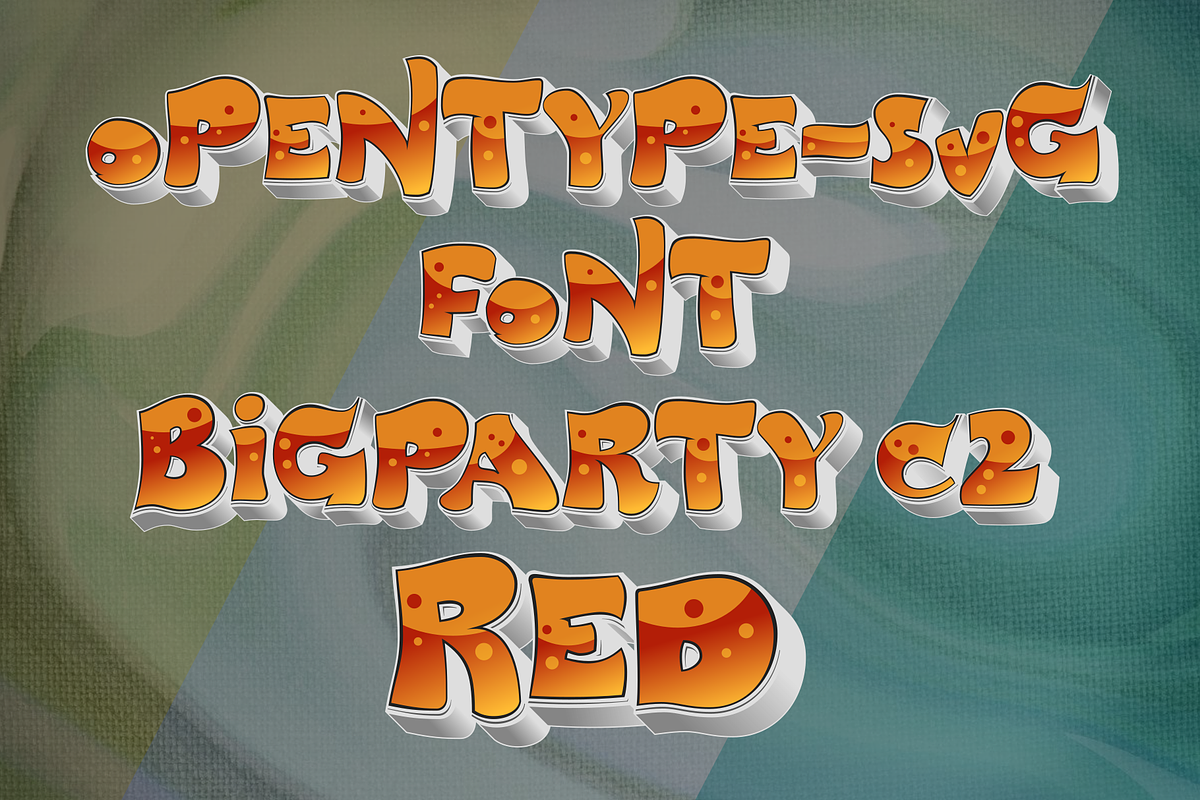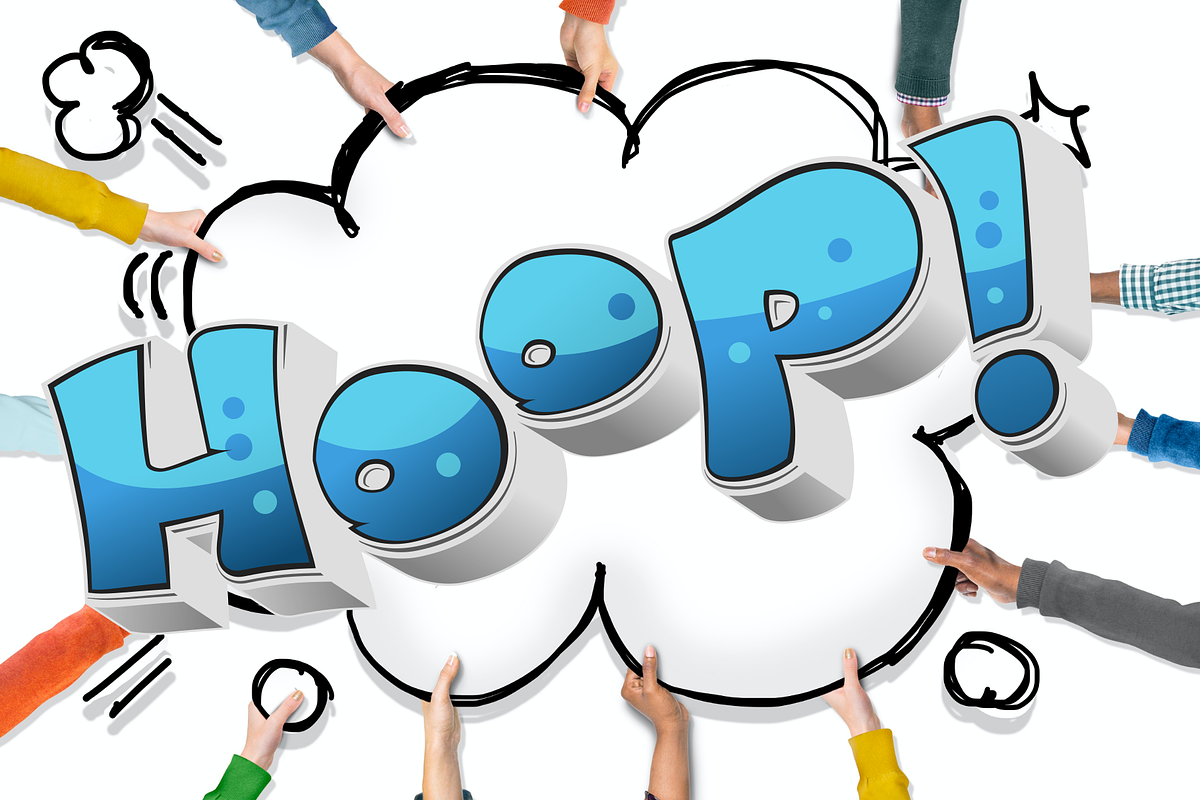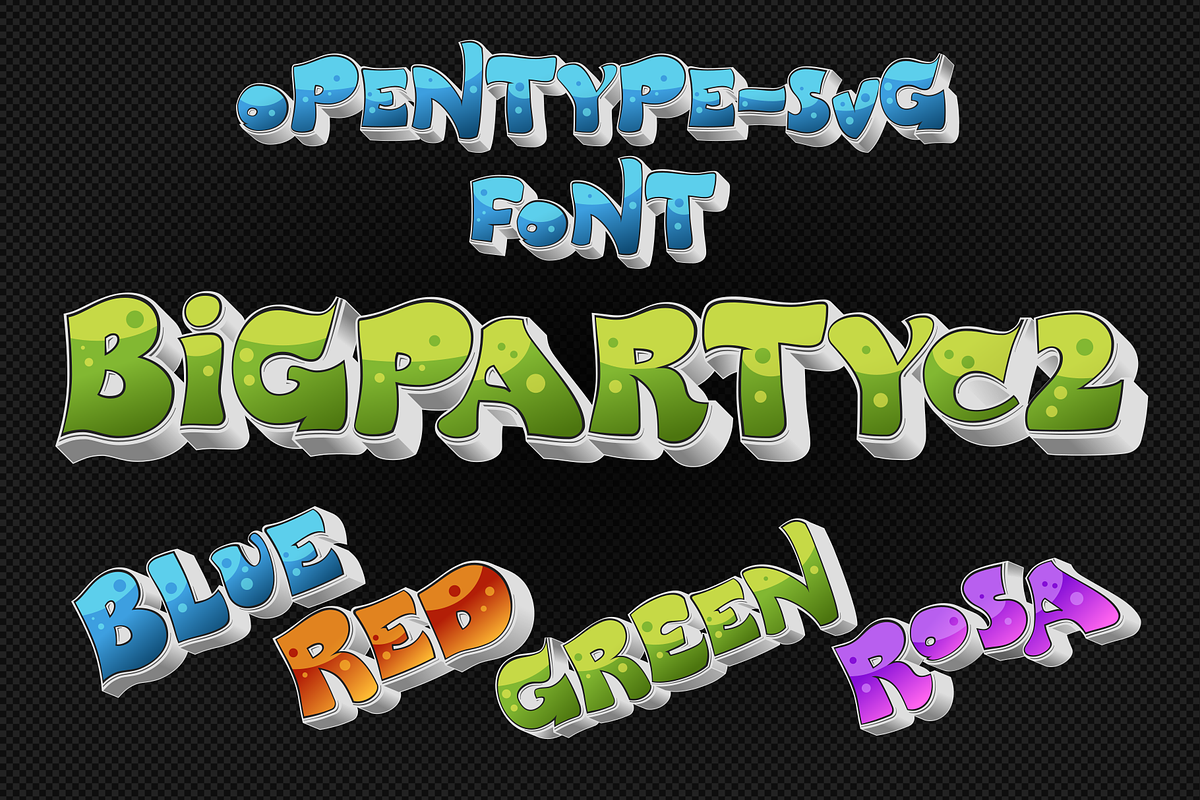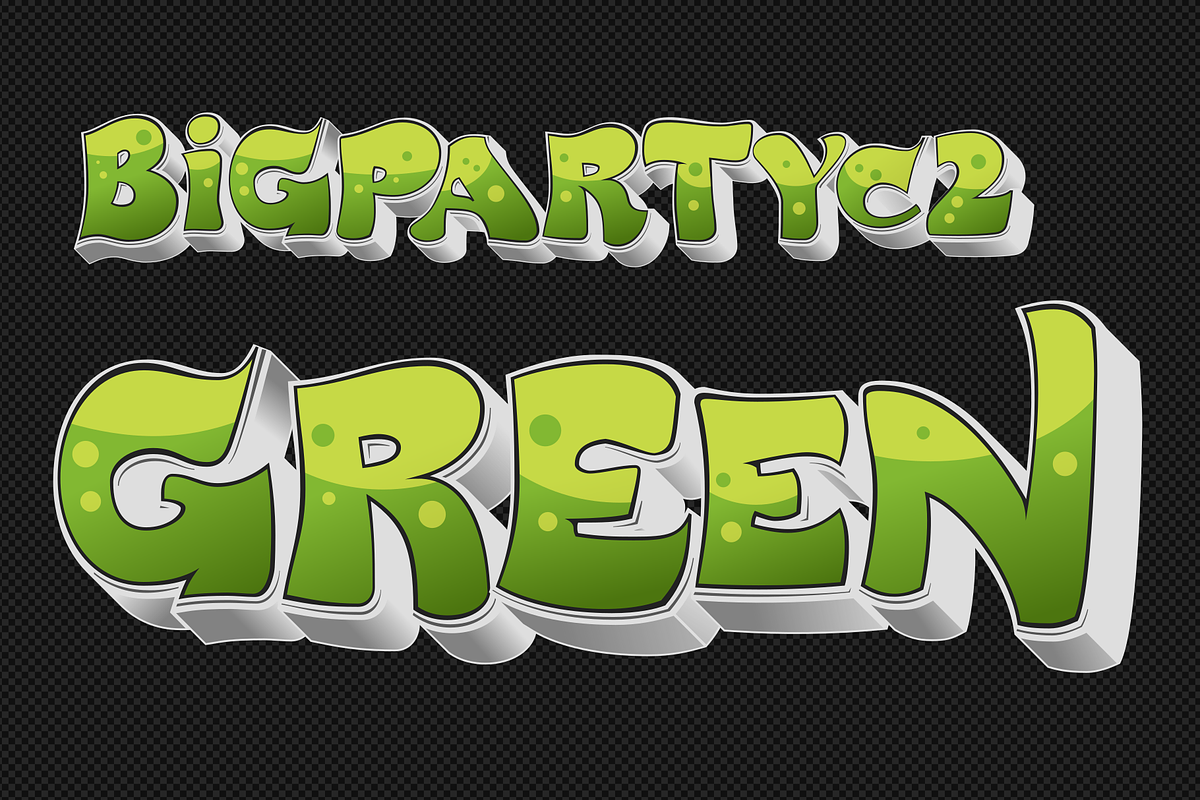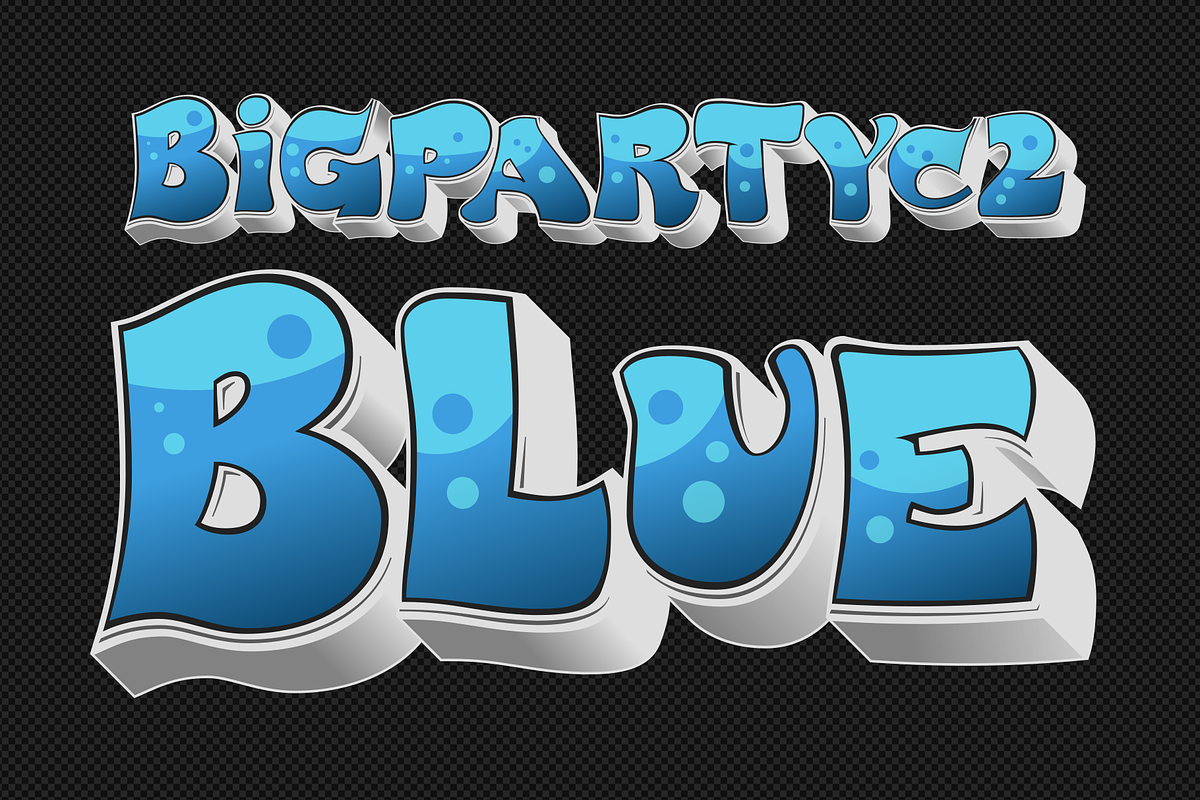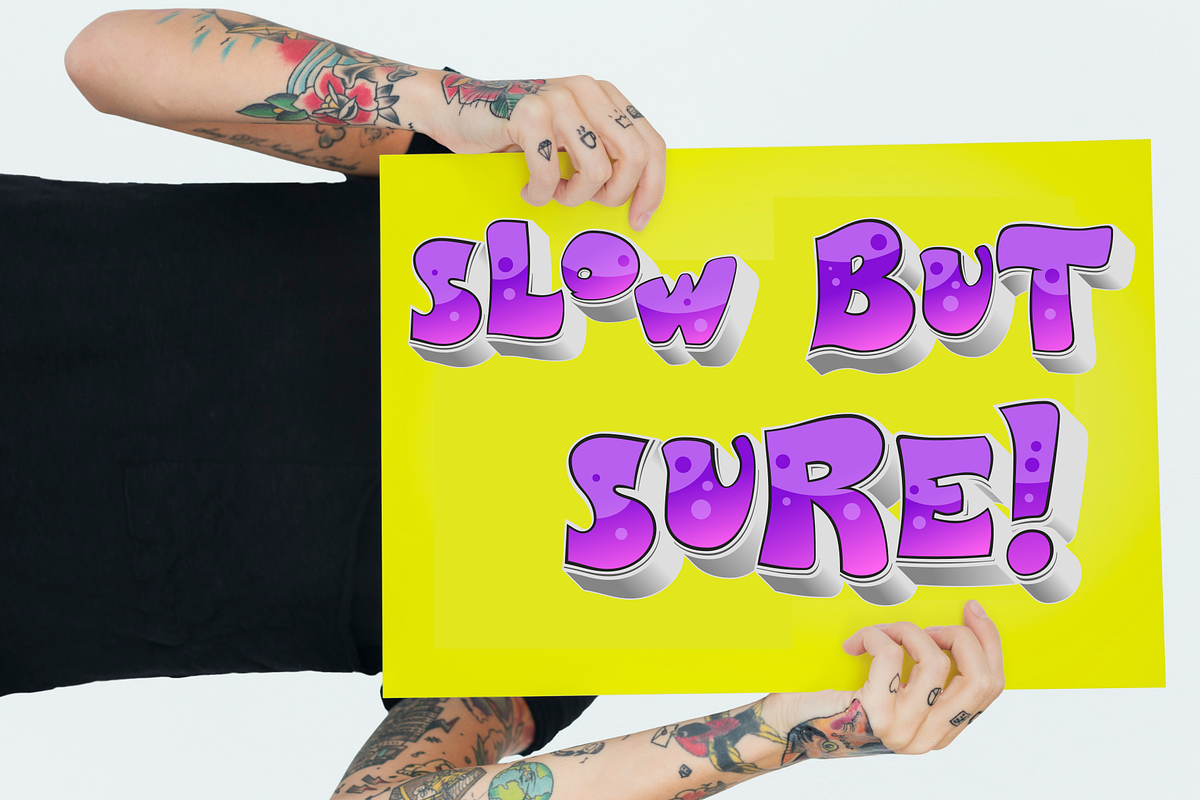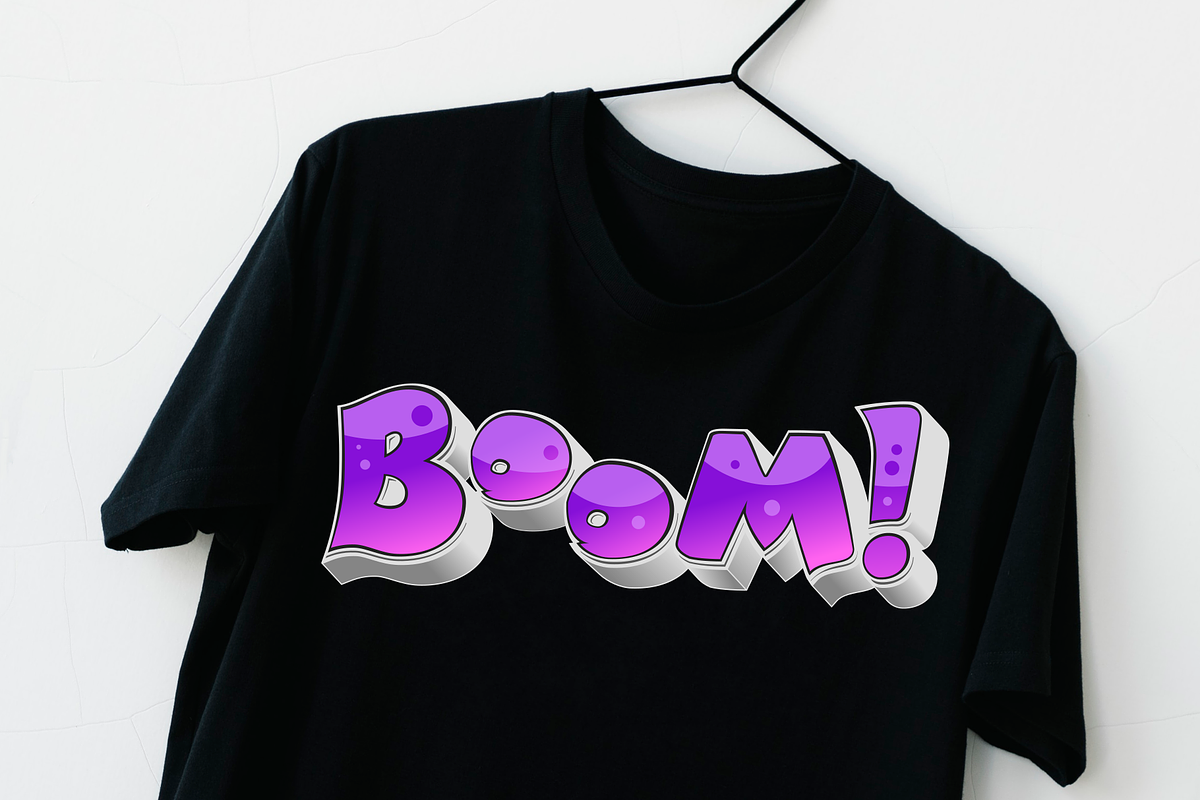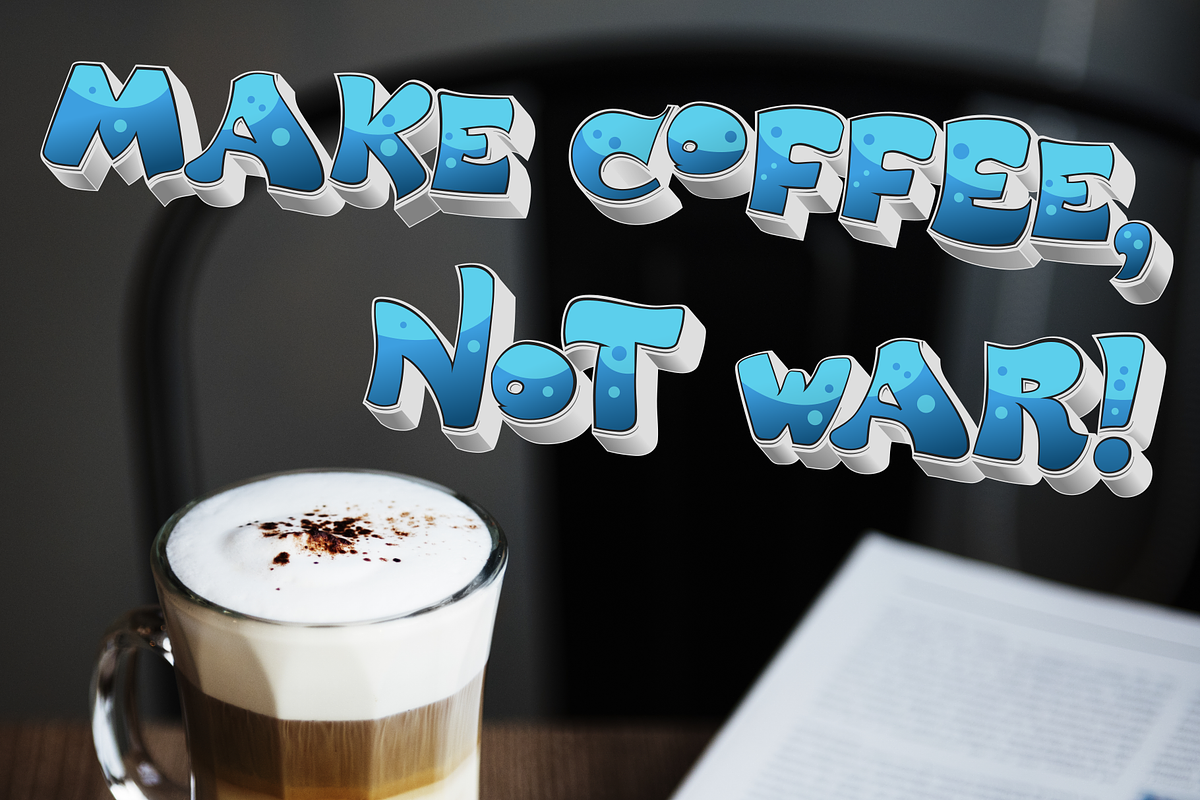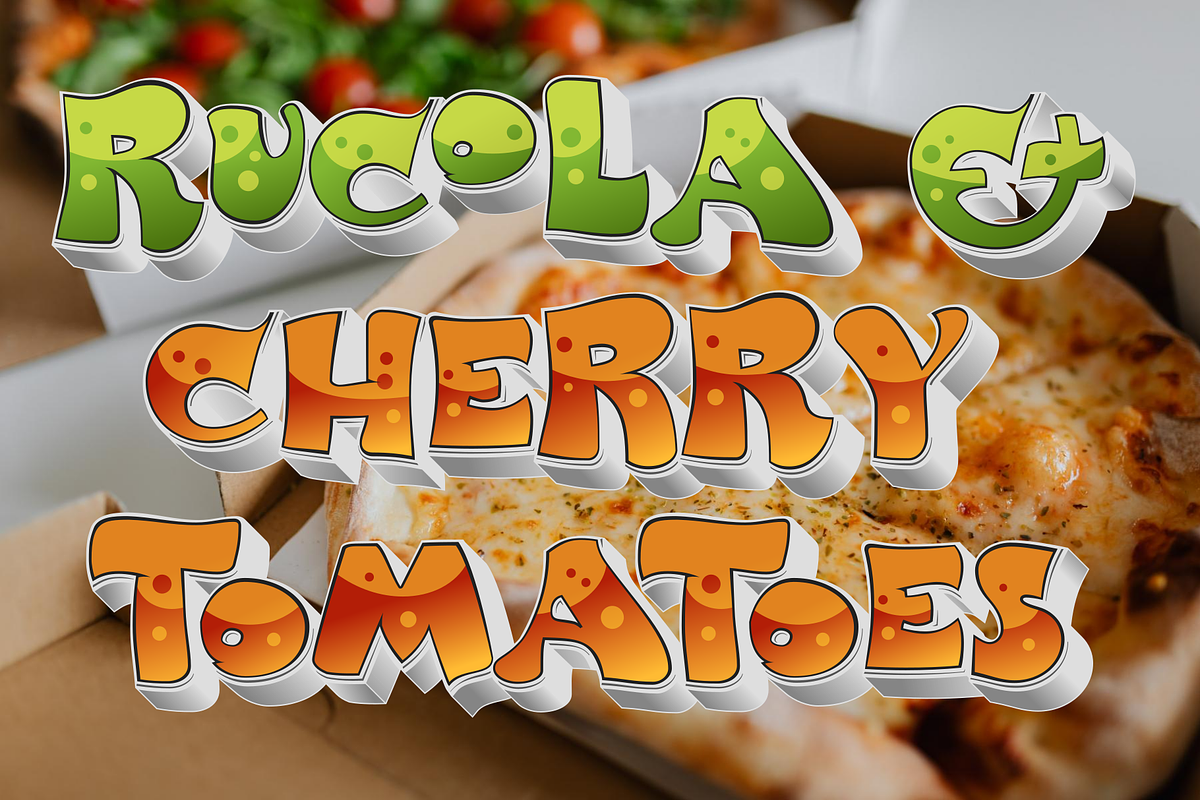
BigPartyC2
Decorative, color fonts : Blue, Red, Green, Orange & Rosa in OpenTypeSVG .TTF and .WOFF format with:
- diacritic glyphs
- contextual alternates